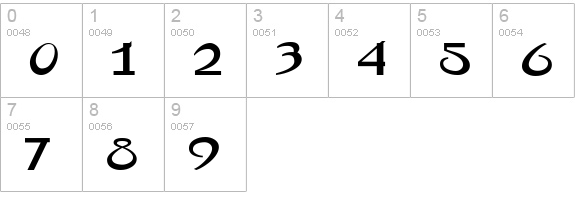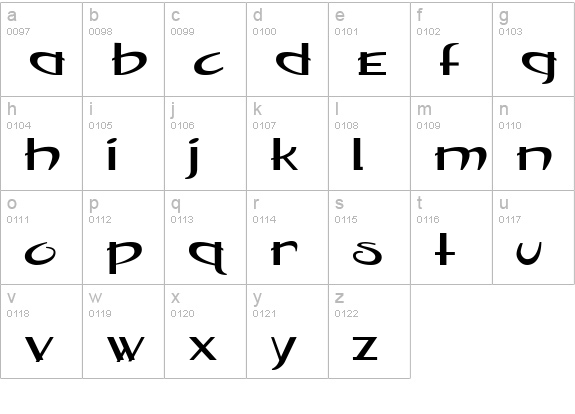
Misfit Font Details
The Misfit font is a unique and edgy typeface that dares to stand out from the crowd. Its quirky design and playful charm make it perfect for adding a touch of personality to your projects. Whether you're looking to create eye-catching headlines, funky posters, or artistic branding, Misfit is sure to make a bold statement. Best of all, this one-of-a-kind font is available for free download at FontsMarket.com. Embrace your inner misfit and let your creativity shine with Misfit font!